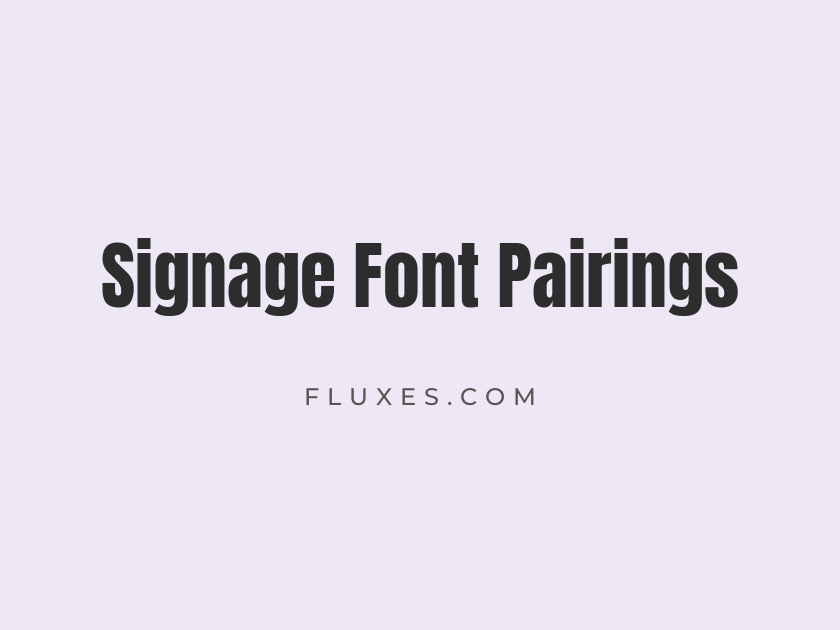
37 Best Font Pairings for Signage
Signage lives or dies on legibility at distance, in motion, or under glare, which makes font pairing decisions here different from print or web work. A heading font for signage needs to read instantly from across a room or a parking lot, while the supporting body copy handles the finer print: hours, directions, disclaimers, menu details. The pairings below draw on genuinely free Google Fonts pairings that balance that contrast, whether you are working on wayfinding, retail storefronts, restaurant boards, or civic directories.
1. Anton + Noto Sans
Anton’s compressed, heavyweight strokes carry across a street from a distance, and Noto Sans steps in with a neutral, wide-reaching humanist structure built for exactly this kind of clarity. The pairing suits retail storefront signage where a name needs punch and the details underneath need to stay unobtrusive.
2. Bebas Neue + Karla
Bebas Neue is a staple of wayfinding signage because its all-caps condensed form fits tight sign panels without losing height. Karla’s grotesque warmth softens the directional messaging beneath it, so instructions feel guiding rather than institutional.
3. Archivo Black + Work Sans
Both fonts share a grotesque skeleton, so the jump from Archivo Black’s dense weight to Work Sans’s lighter, evenly spaced letterforms feels like a change in volume rather than a change in voice. That consistency matters on multi-tenant directory boards where dozens of names need to sit in the same visual family.
4. Oswald + Lato
Oswald’s condensed proportions are a natural fit for menu board headers where space is limited but impact still matters. Lato underneath reads comfortably at smaller sizes, which is exactly what a hungry customer scanning line items needs.
5. Fjalla One + PT Sans
Fjalla One has just enough personality to mark a gallery entrance without competing with the art, and PT Sans carries wall text with the kind of restrained clarity museum signage depends on. Both share compatible x-heights, so labels and headers align cleanly at a glance.
6. Staatliches + Mulish
Staatliches has a poster-like, hand-stenciled energy that suits temporary event signage, banners, and festival directories. Mulish keeps the schedule details calm and easy to scan, letting the display font do the shouting.
7. League Gothic + Karla
League Gothic carries a mid-century condensed feel that reads well on painted or backlit diner signs, and Karla’s rounded terminals keep the supporting copy friendly rather than cold. This combination fits any retro-leaning hospitality signage program.
8. Barlow Condensed + Barlow
Because both fonts belong to the same superfamily, headers and body text share identical proportions and stroke contrast while still reading as two distinct weights of information. Transit signage benefits from this kind of built-in consistency across dozens of sign types.
9. Teko + Mukta
Teko’s tall, narrow caps were designed with dense information display in mind, making it a solid choice for civic wayfinding. Mukta, drawn from the same design studio’s approach to multi-script legibility, pairs naturally as a body companion in public buildings.
10. Anton + Inter
Anton has an industrial, stamped-metal quality that suits warehouse and facility signage, while Inter’s engineered neutrality keeps operational instructions crisp under fluorescent lighting. The contrast in mood between the two fonts mirrors the contrast in purpose: one marks the space, the other explains the rules.
11. Alfa Slab One + Nunito Sans
Alfa Slab One’s chunky slab serifs have a bakery-sign warmth that has made it a go-to for food signage. Nunito Sans, with its soft curves and generous spacing, keeps the supporting copy approachable rather than heavy.
Reserve heavier, more decorative display fonts for short headers only, and let a plain, well-tested body font carry hours, addresses, and instructions. Consistency across a sign system matters more than novelty; picking one or two pairings and repeating them across a building or campus reads as more professional than varying fonts sign to sign.